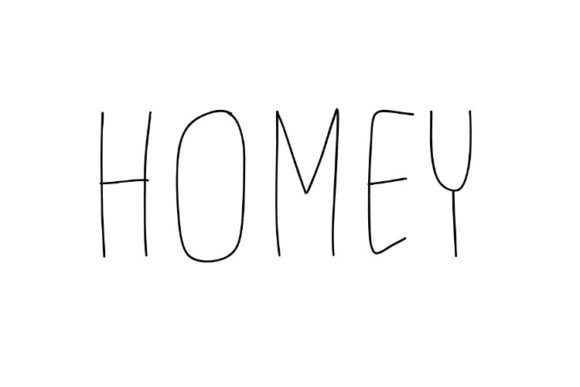
Introducing Homey Font: The Fun and Quirky Handwritten Font
Are you looking for a font that can add a touch of personality to your designs? Look no further than Homey Font, a fun and quirky handwritten font that is sure to elevate any creation. In this article, we’ll take a closer look at Homey Font, its features, and how it can be used to take your designs to the next level.
What is Homey Font?
Homey Font is a handwritten font that is designed to bring a sense of fun and playfulness to your designs. It is a unique and quirky font that is perfect for a wide range of projects, from creative branding and advertising to packaging and digital media. With its irregular strokes and charming imperfections, Homey Font has a distinctly handmade feel that is sure to capture the attention of your audience.
Key Features of Homey Font
So, what makes Homey Font so special? Here are just a few of its key features:
- Handwritten feel: Homey Font has a distinctly handwritten feel that gives it a personal and relatable touch.
- Fun and quirky: This font is designed to be fun and playful, making it perfect for brands and projects that want to stand out from the crowd.
- Irregular strokes: Homey Font features irregular strokes and charming imperfections that give it a unique and handmade feel.
- Versatile: This font can be used for a wide range of projects, from creative branding and advertising to packaging and digital media.
How to Use Homey Font
Homey Font is a versatile font that can be used in a variety of ways. Here are just a few ideas to get you started:
- Branding and advertising: Use Homey Font to create eye-catching logos, ads, and marketing materials that stand out from the crowd.
- Packaging design: Add a touch of personality to your packaging with Homey Font, perfect for food, beverage, and lifestyle products.
- Digital media: Use Homey Font in your digital media, such as social media graphics, blog posts, and email newsletters.
- Creative projects: Homey Font is perfect for creative projects, such as illustrations, comics, and graphic novels.
Benefits of Using Homey Font
So, why should you choose Homey Font for your next project? Here are just a few benefits of using this fun and quirky font:
- Adds personality: Homey Font adds a touch of personality to your designs, making them more relatable and engaging.
- Stand out from the crowd: This font is designed to stand out from the crowd, making it perfect for brands and projects that want to differentiate themselves.
- Easy to read: Despite its irregular strokes and imperfections, Homey Font is surprisingly easy to read, making it perfect for body text and headlines.
- Versatile: Homey Font can be used in a wide range of projects, from creative branding and advertising to packaging and digital media.
Tips for Using Homey Font Effectively
Here are a few tips for using Homey Font effectively in your designs:
- Use it sparingly: While Homey Font is fun and playful, it can be overwhelming if used too much. Use it sparingly to add a touch of personality to your designs.
- Pair it with a neutral font: Pair Homey Font with a neutral font, such as a sans-serif font, to create contrast and visual interest.
- Experiment with colors: Homey Font looks great in a variety of colors, so don’t be afraid to experiment and find the perfect color scheme for your design.
- Pay attention to legibility: While Homey Font is easy to read, it’s still important to pay attention to legibility. Make sure to adjust the font size and style as needed to ensure that your text is clear and easy to read.
In conclusion, Homey Font is a fun and quirky handwritten font that is sure to elevate any creation. With its irregular strokes and charming imperfections, this font has a distinctly handmade feel that is perfect for brands and projects that want to stand out from the crowd. Whether you’re looking to add a touch of personality to your branding and advertising, packaging design, or digital media, Homey Font is a versatile font that is sure to deliver.